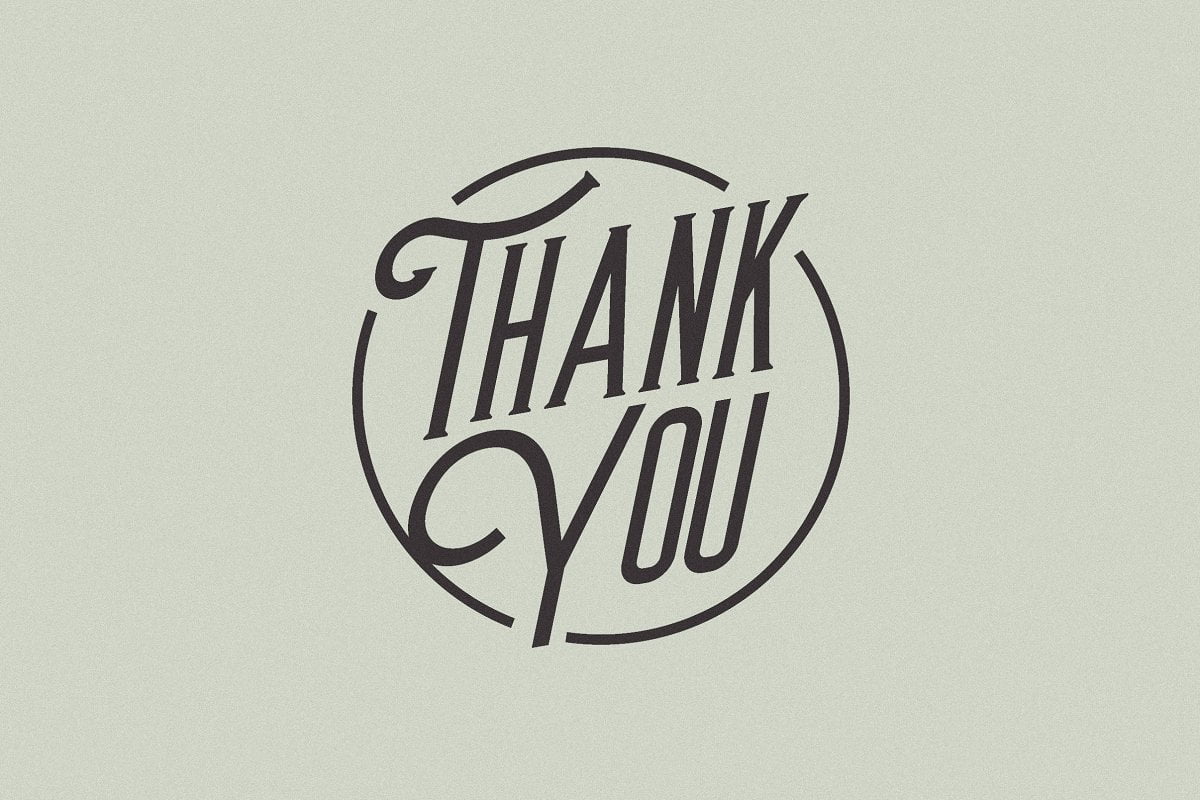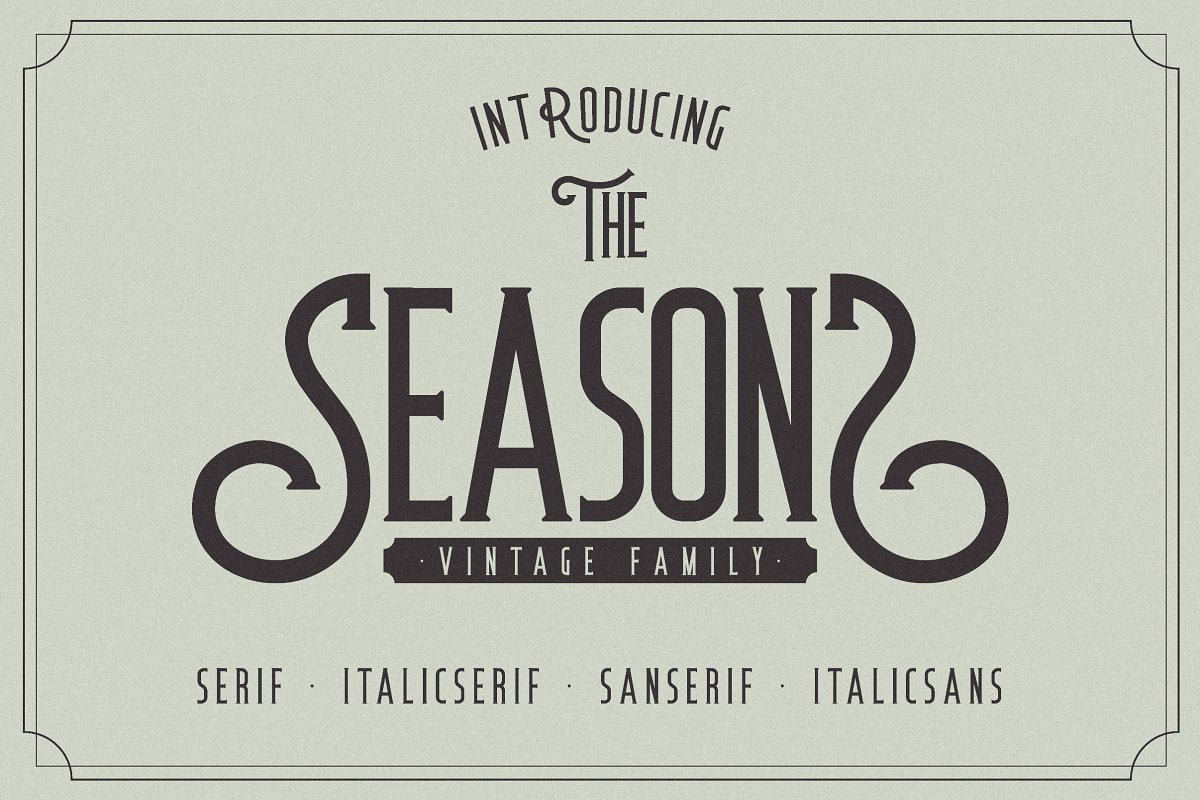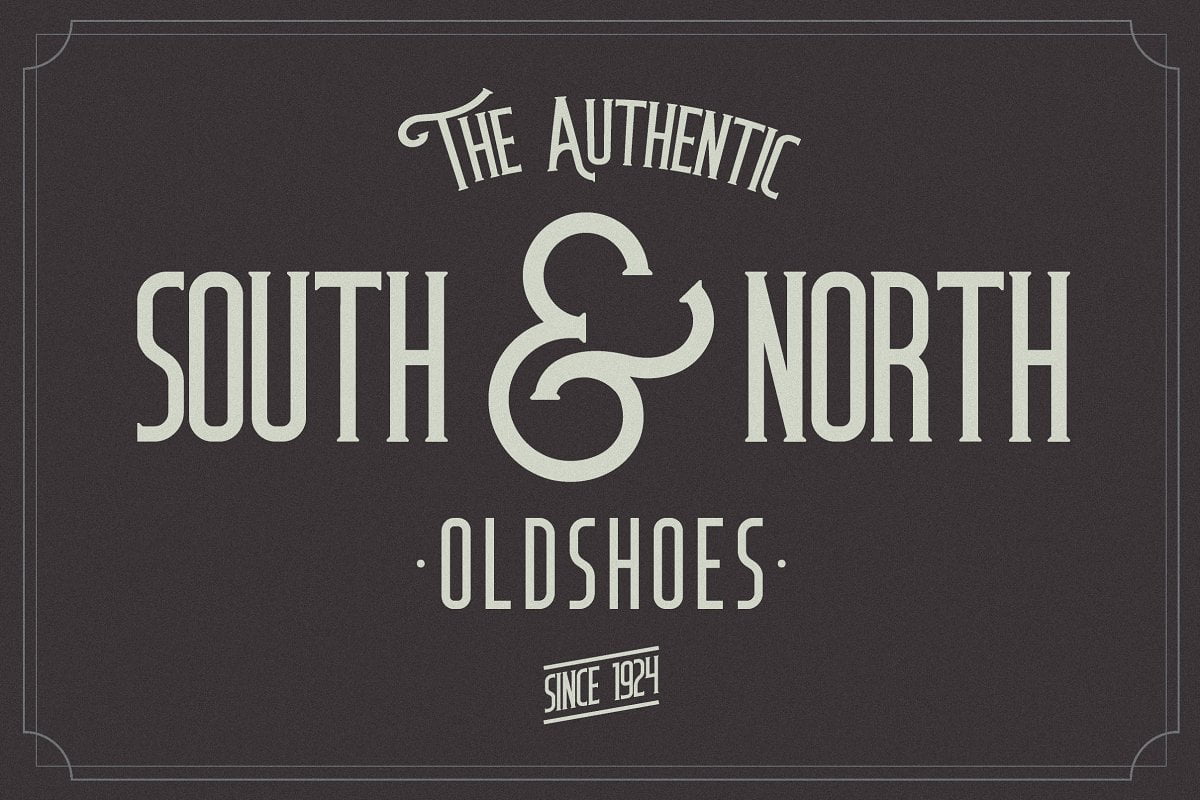
The Seasons Font Download Free Font - If you’re looking for a font that screams elegance and sophistication, the seasons font by mycreativeland is definitely. A serif typeface with 6 styles, available from adobe fonts for sync and web. The seasons serif font this is a. For commercial use you need to buy a license here. Explore the seasons designed by elena genova at adobe fonts. The seasons serif font free for personal use. Installable on pc, mac, linux, ios, and android platforms. Discover the free the seasons regular font at free font download !
Discover the free the seasons regular font at free font download ! For commercial use you need to buy a license here. The seasons serif font free for personal use. A serif typeface with 6 styles, available from adobe fonts for sync and web. If you’re looking for a font that screams elegance and sophistication, the seasons font by mycreativeland is definitely. Installable on pc, mac, linux, ios, and android platforms. Explore the seasons designed by elena genova at adobe fonts. The seasons serif font this is a.
For commercial use you need to buy a license here. Installable on pc, mac, linux, ios, and android platforms. The seasons serif font this is a. If you’re looking for a font that screams elegance and sophistication, the seasons font by mycreativeland is definitely. Discover the free the seasons regular font at free font download ! Explore the seasons designed by elena genova at adobe fonts. A serif typeface with 6 styles, available from adobe fonts for sync and web. The seasons serif font free for personal use.
The seasons serif font free for personal use. For commercial use you need to buy a license here. Explore the seasons designed by elena genova at adobe fonts. The seasons serif font this is a. Discover the free the seasons regular font at free font download !
If you’re looking for a font that screams elegance and sophistication, the seasons font by mycreativeland is definitely. For commercial use you need to buy a license here. A serif typeface with 6 styles, available from adobe fonts for sync and web. Discover the free the seasons regular font at free font download ! Explore the seasons designed by elena.
The seasons serif font free for personal use. If you’re looking for a font that screams elegance and sophistication, the seasons font by mycreativeland is definitely. A serif typeface with 6 styles, available from adobe fonts for sync and web. Installable on pc, mac, linux, ios, and android platforms. Explore the seasons designed by elena genova at adobe fonts.
The seasons serif font free for personal use. If you’re looking for a font that screams elegance and sophistication, the seasons font by mycreativeland is definitely. Explore the seasons designed by elena genova at adobe fonts. Installable on pc, mac, linux, ios, and android platforms. The seasons serif font this is a.
Installable on pc, mac, linux, ios, and android platforms. For commercial use you need to buy a license here. Explore the seasons designed by elena genova at adobe fonts. The seasons serif font this is a. If you’re looking for a font that screams elegance and sophistication, the seasons font by mycreativeland is definitely.
Discover the free the seasons regular font at free font download ! The seasons serif font free for personal use. Installable on pc, mac, linux, ios, and android platforms. If you’re looking for a font that screams elegance and sophistication, the seasons font by mycreativeland is definitely. Explore the seasons designed by elena genova at adobe fonts.
Download The Seasons Font For Personal Use Free 2024
Installable on pc, mac, linux, ios, and android platforms. The seasons serif font free for personal use. Explore the seasons designed by elena genova at adobe fonts. A serif typeface with 6 styles, available from adobe fonts for sync and web. If you’re looking for a font that screams elegance and sophistication, the seasons font by mycreativeland is definitely.
Seasons Font FREE Download & Similar Fonts FontGet
A serif typeface with 6 styles, available from adobe fonts for sync and web. Discover the free the seasons regular font at free font download ! For commercial use you need to buy a license here. Installable on pc, mac, linux, ios, and android platforms. The seasons serif font this is a.
Seasons Font Download Free for Desktop & Webfont
For commercial use you need to buy a license here. Explore the seasons designed by elena genova at adobe fonts. Installable on pc, mac, linux, ios, and android platforms. A serif typeface with 6 styles, available from adobe fonts for sync and web. The seasons serif font free for personal use.
The Seasons Font Free Download
A serif typeface with 6 styles, available from adobe fonts for sync and web. For commercial use you need to buy a license here. The seasons serif font free for personal use. The seasons serif font this is a. If you’re looking for a font that screams elegance and sophistication, the seasons font by mycreativeland is definitely.
The Seasons Serif Font Free For Personal Use.
Explore the seasons designed by elena genova at adobe fonts. Installable on pc, mac, linux, ios, and android platforms. A serif typeface with 6 styles, available from adobe fonts for sync and web. For commercial use you need to buy a license here.
Discover the free the seasons regular font at free font download ! If you’re looking for a font that screams elegance and sophistication, the seasons font by mycreativeland is definitely.